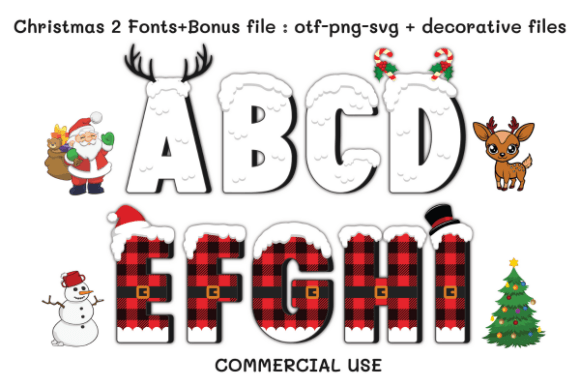
Indulge in a Festive Ambiance with the ‘Christmas’ Font
Are you looking to add a touch of holiday cheer to your designs, crafts, or greeting cards? Look no further than our ‘Christmas’ font, a charming and colorful typographic delight that’s expertly designed to bring warmth and joy to any project. With its adorable aesthetics, this vibrant font is sure to breathe Yuletide magic into your creations, embodying the feeling of Christmas in a way that’s sure to captivate your audience.
A Font that’s Full of Holiday Cheer
Our ‘Christmas’ font is the perfect addition to any design, sweater, craft, or greeting card that needs a festive touch. Its unique and colorful design is sure to make your projects stand out, adding a level of whimsy and fun that’s sure to delight both kids and adults alike. Whether you’re a designer, crafter, or simply someone who loves the holiday season, this font is a must-have for anyone looking to create festive and engaging content.
One of the best things about our ‘Christmas’ font is its versatility. The black version of the font is compatible with Cricut Design Space and other cutting machines, making it perfect for crafters and DIY enthusiasts. Simply download the font, import it into your cutting machine, and you’re ready to create a wide range of festive projects, from holiday cards and decorations to custom sweaters and gifts.
For designers and digital artists, the color version of the font is compatible with a range of design programs, including PhotoShop, Illustrator, Silhouette, and Inkscape. This allows you to easily incorporate the font into your digital designs, adding a touch of holiday cheer to your work. However, it’s worth noting that the OTF and/or TTF files of the color version are not compatible with Cricut, so be sure to plan accordingly.
Why Choose the ‘Christmas’ Font?
So why choose our ‘Christmas’ font over other festive fonts on the market? Here are just a few reasons why our font stands out:
- Unique and Colorful Design: Our ‘Christmas’ font features a unique and colorful design that’s sure to make your projects stand out.
- Versatility: The font is compatible with a range of design programs and cutting machines, making it perfect for both digital and physical projects.
- High-Quality: Our font is made from high-quality files, ensuring that it looks great in any project.
Tips for Using the ‘Christmas’ Font
Here are a few tips for using our ‘Christmas’ font in your projects:
- Pair it with Other Festive Elements: Pair our ‘Christmas’ font with other festive elements, such as holly, snowflakes, or Christmas trees, to create a cohesive and engaging design.
- Experiment with Different Colors: Don’t be afraid to experiment with different colors and combinations to find the perfect look for your project.
- Use it in Combination with Other Fonts: Our ‘Christmas’ font can be used in combination with other fonts to create a unique and eye-catching design.
Our ‘Christmas’ font is a charming and colorful typographic delight that’s perfect for adding a touch of holiday cheer to any design, craft, or greeting card. With its unique and adorable aesthetics, this vibrant font is sure to breathe Yuletide magic into your creations, embodying the feeling of Christmas in a way that’s sure to captivate your audience. So why wait? Download our ‘Christmas’ font today and start creating your own festive and engaging content.